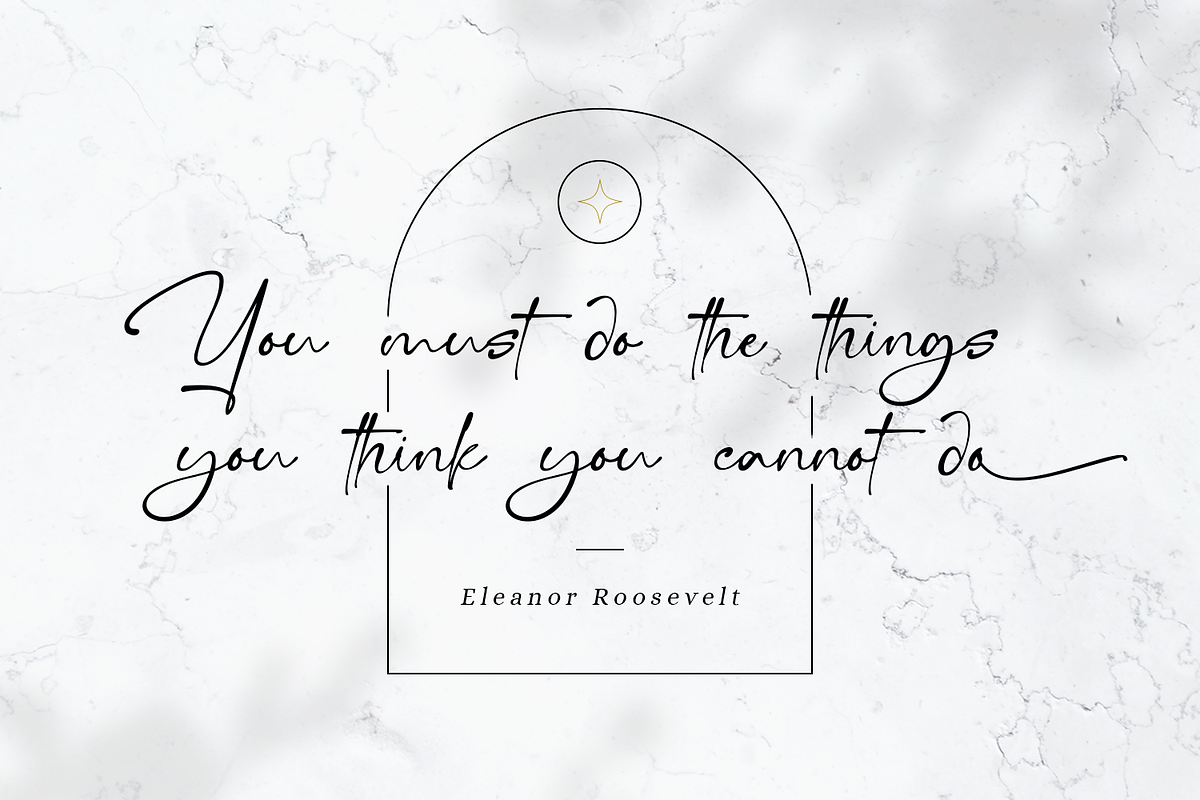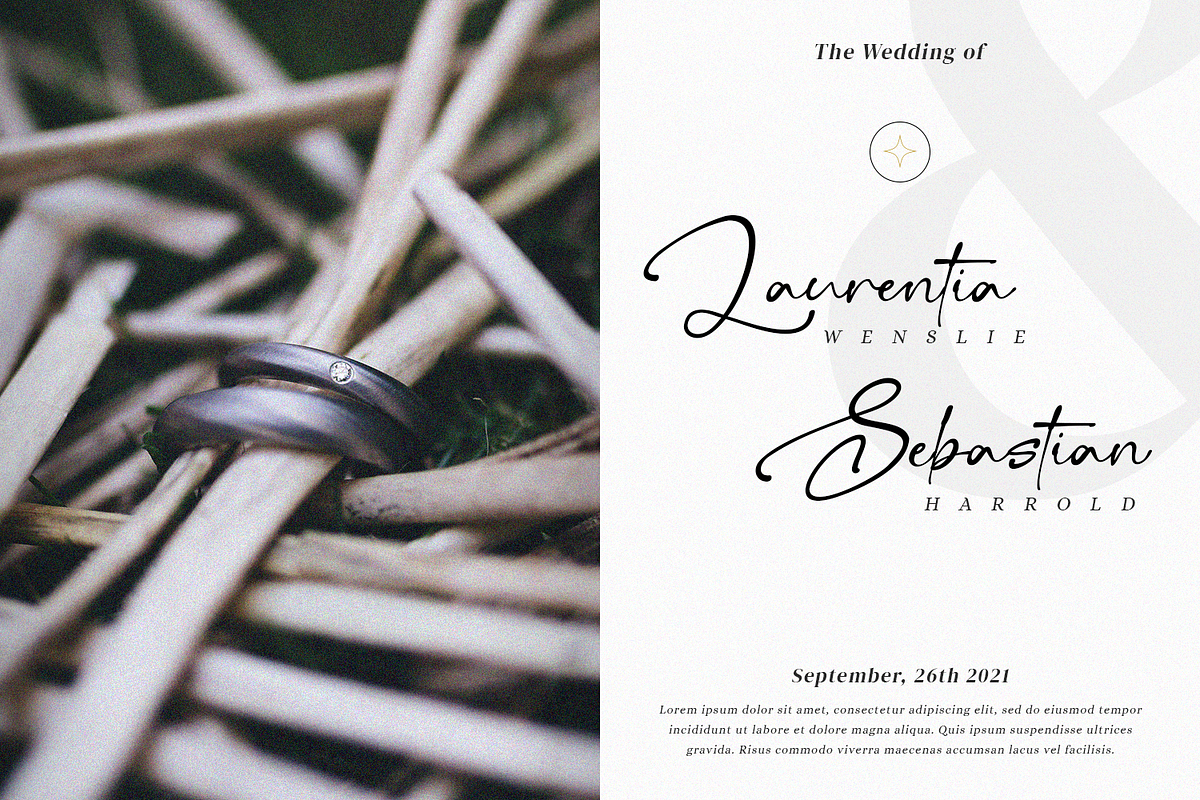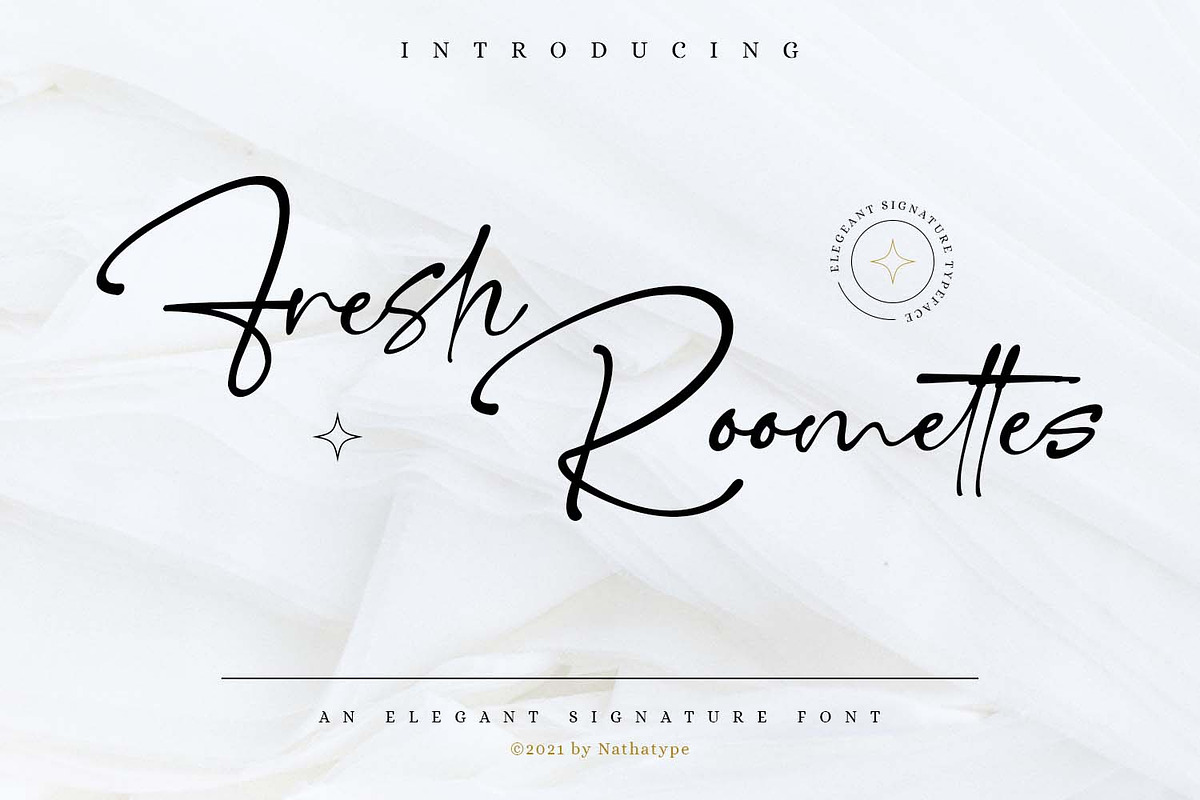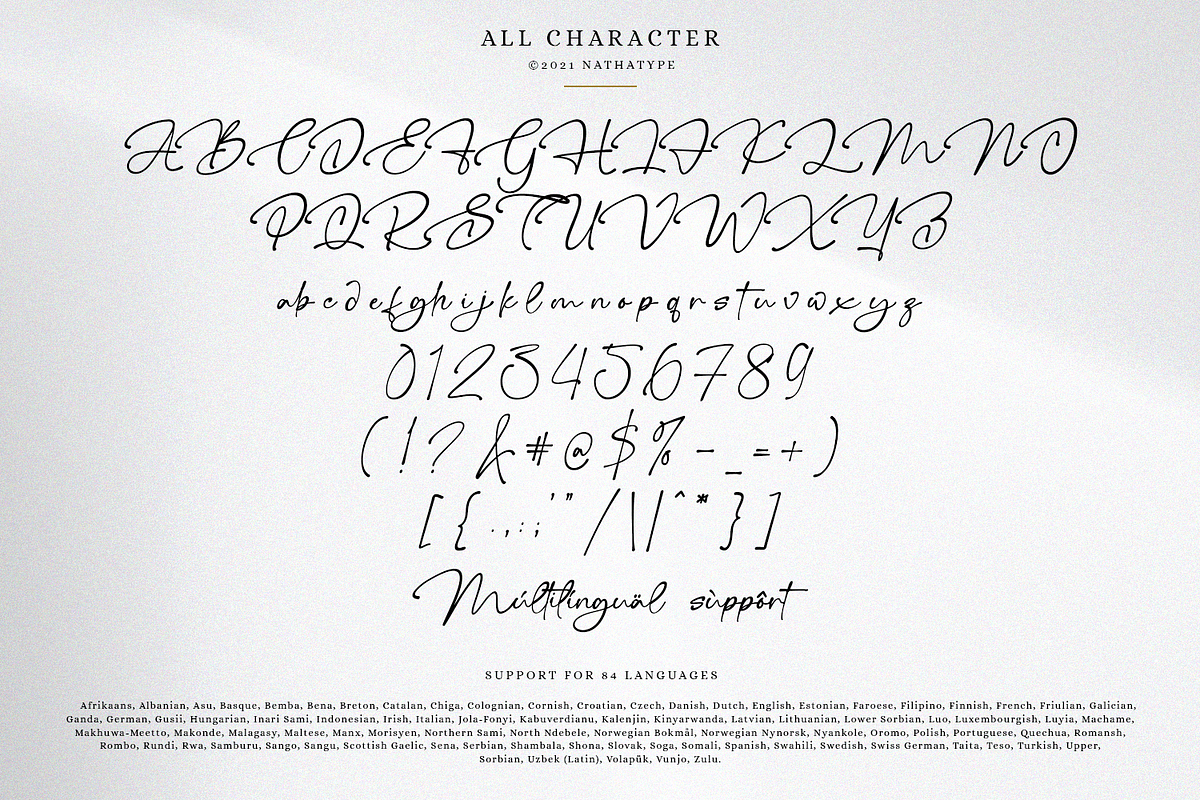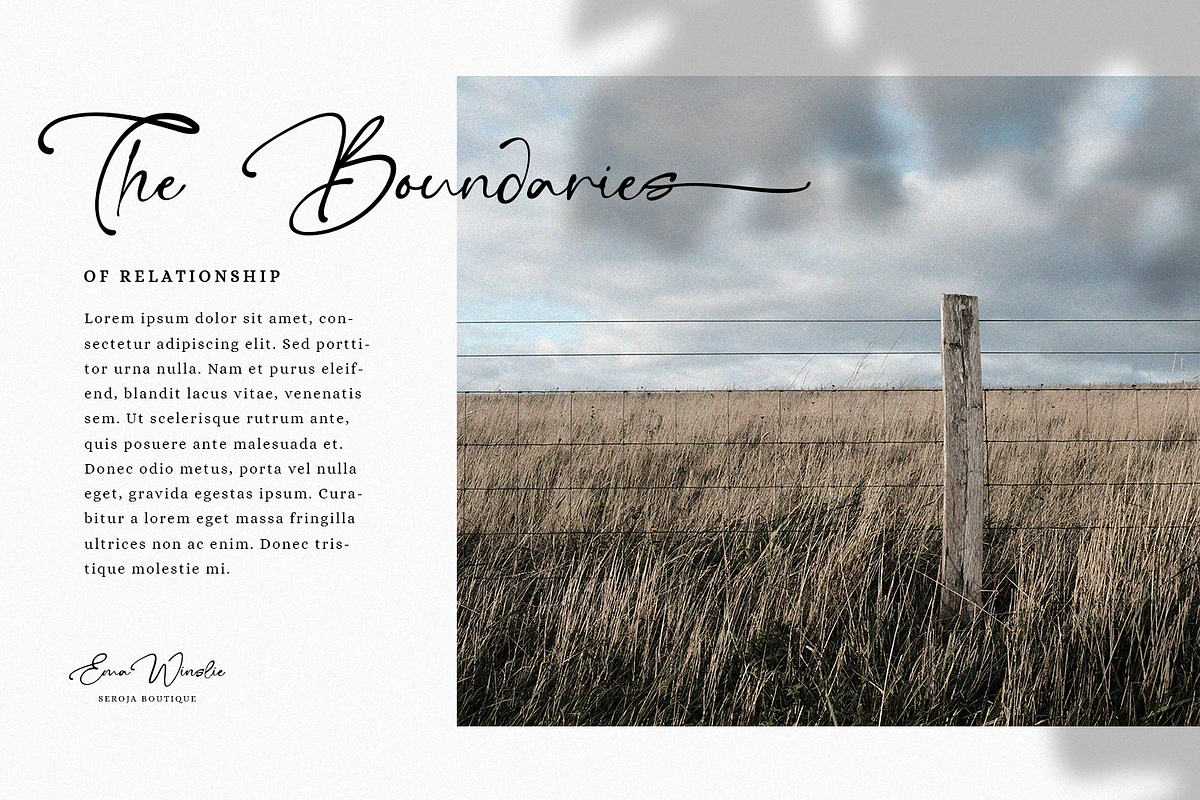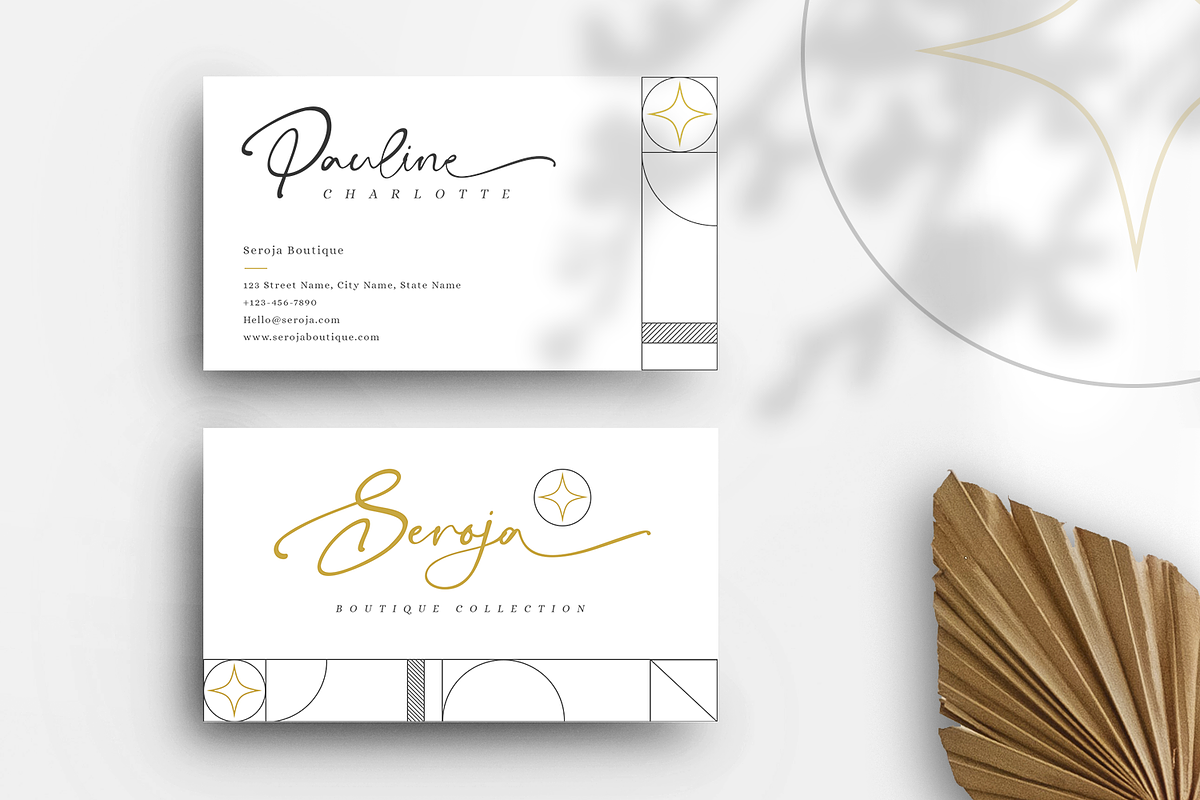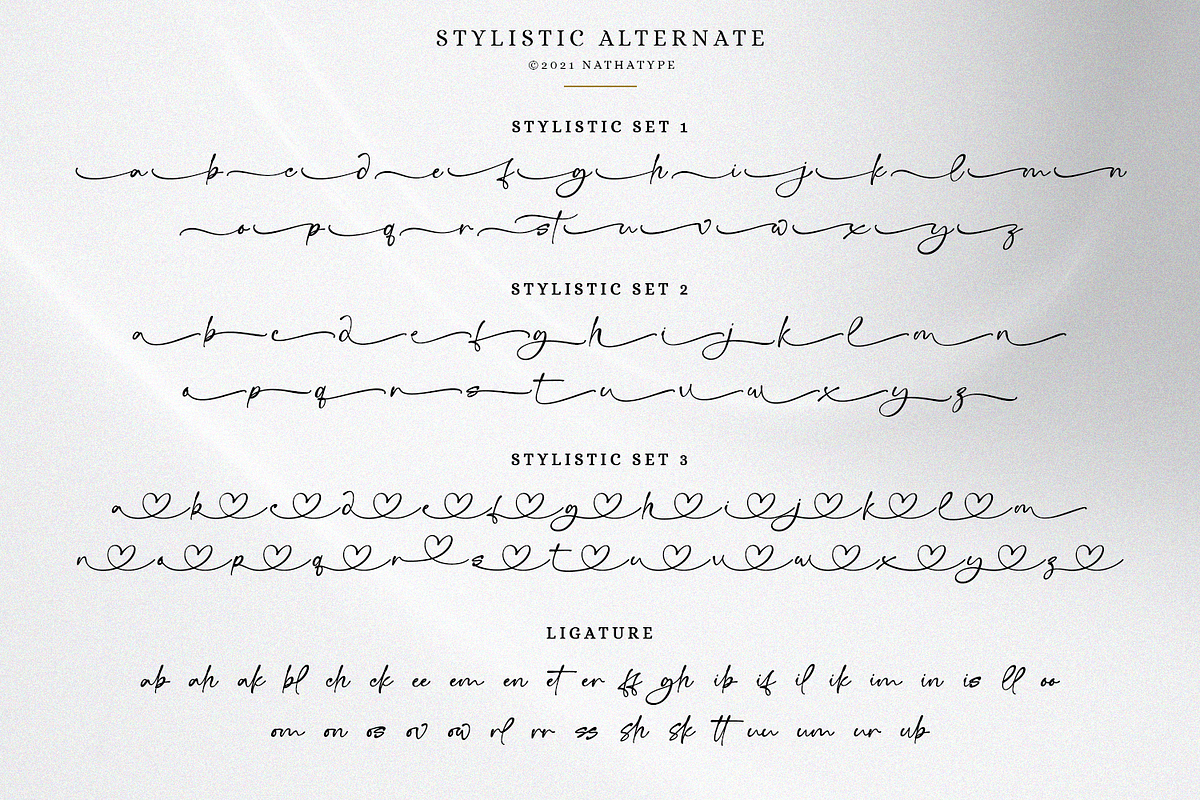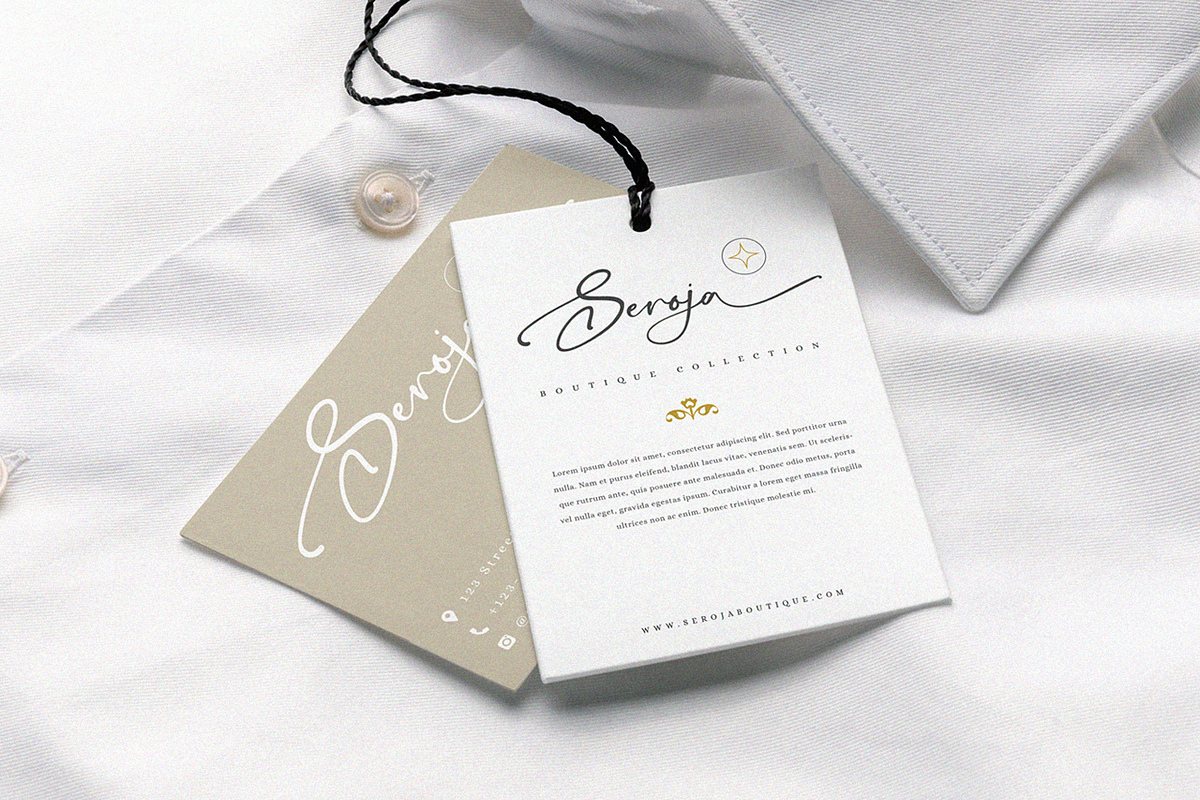
Fresh Roomettes
Wanna make your branding spark? Looking for a gorgeous and stylish font? If you need to create a big, bold logo for your business, work on a poster for an event, or whatever your project may be-then we've got what you want.
Fresh Roomettes - A Signature Font
Fresh Roomettes is an elegant signature font. Every swash, stroke, and curve was created to entice happiness and elegance. Great choice for your logo, book cover, poster, t-shirt, branding, and advertisement needs.
Our font always includes Multilingual Support to make your branding reach a global audience.